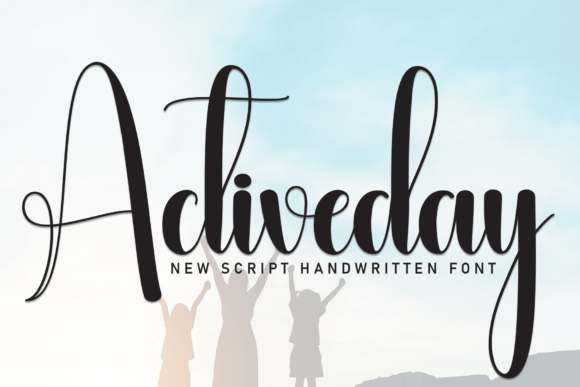
Prepare to be captivated by Activeday Font, a script typeface that ignites your designs with vivacity and positive energy. Each letter dances across the page with a dynamic flair, reflecting the essence of an active lifestyle.
Are you ready to inject a dose of exhilaration into your projects? Activeday Font is your secret weapon. Its playful strokes and vibrant personality are tailor-made for fitness, adventure, and lifestyle brands. Imagine your designs bursting with energy, inspiring your audience to embrace life's dynamic rhythm.
Get ready to experience the versatility of Activeday Font. Its effortless adaptability makes it a perfect fit for a wide range of creative endeavors. Whether you're designing logos, posters, social media graphics, or website layouts, Activeday Font will elevate your work to new heights.